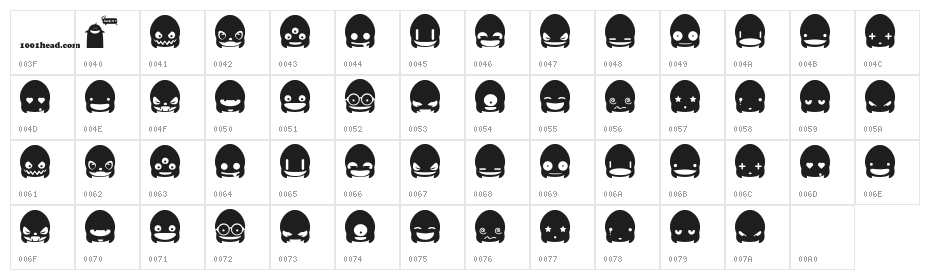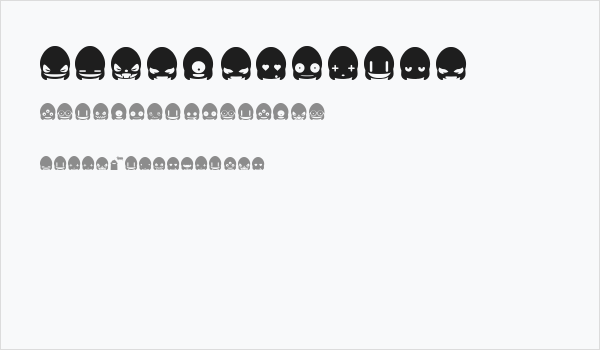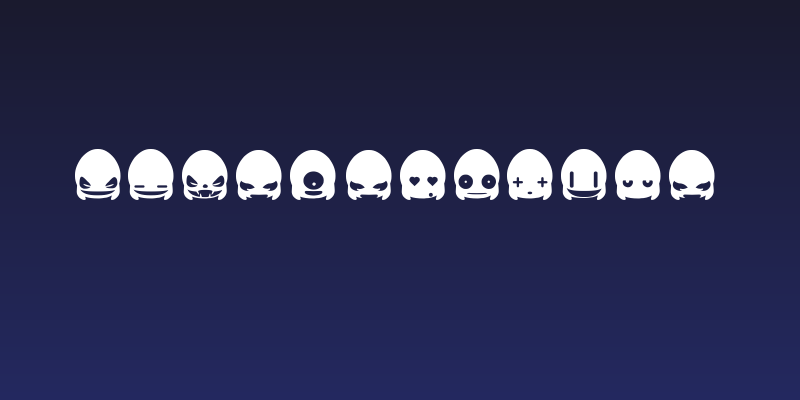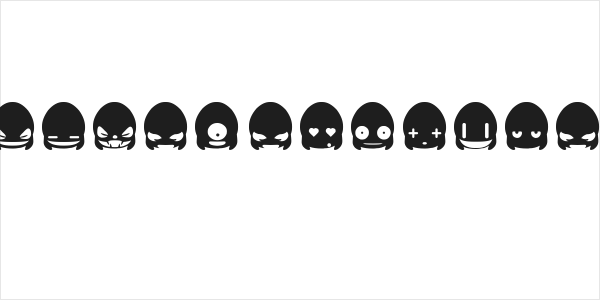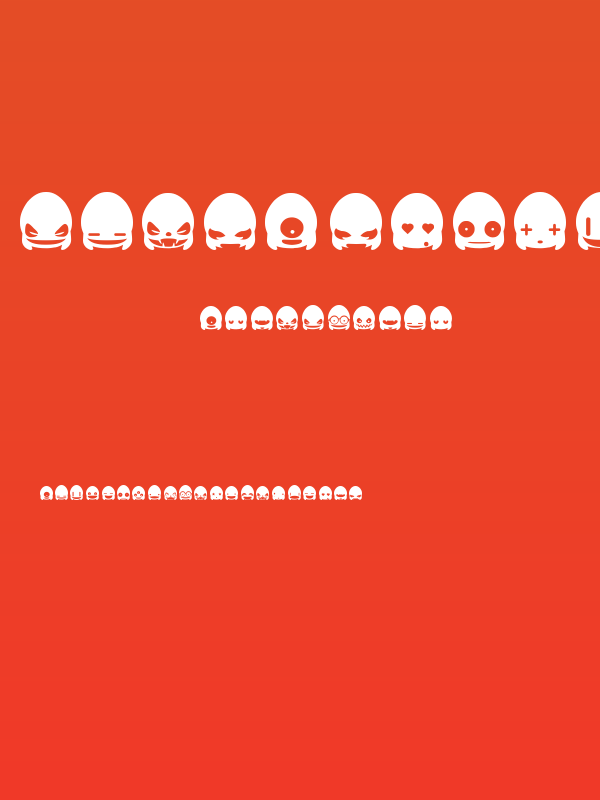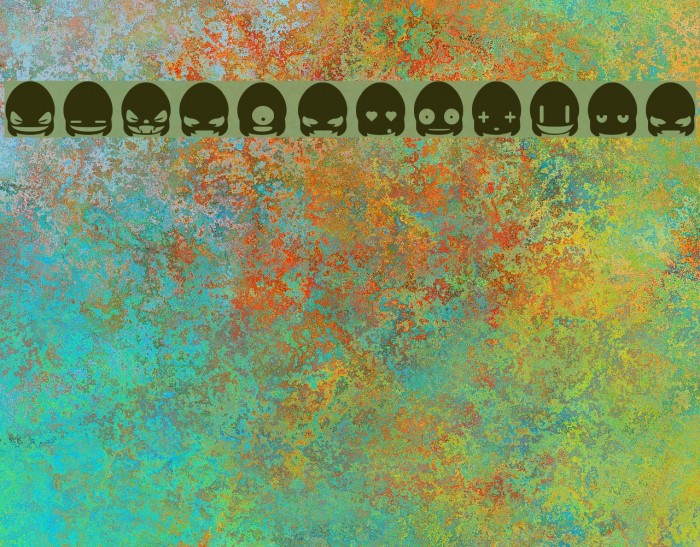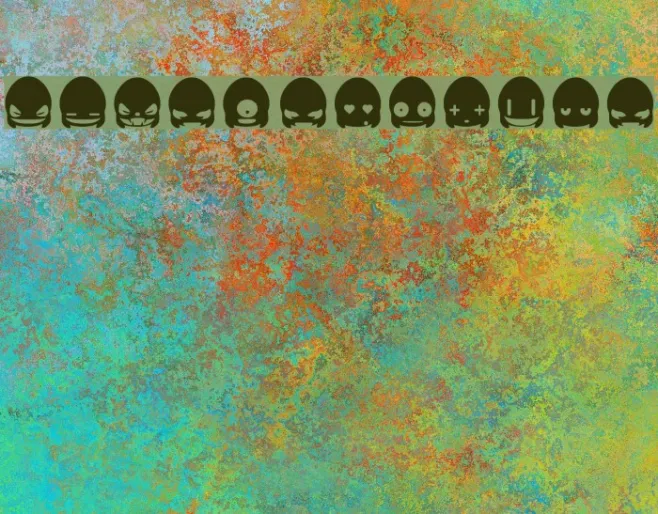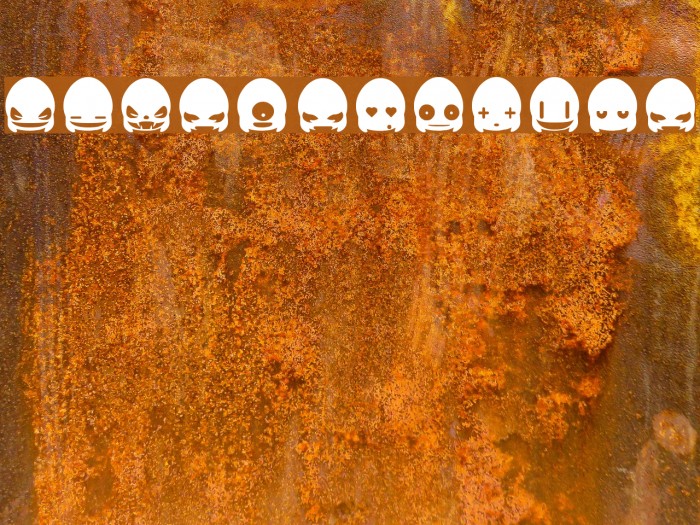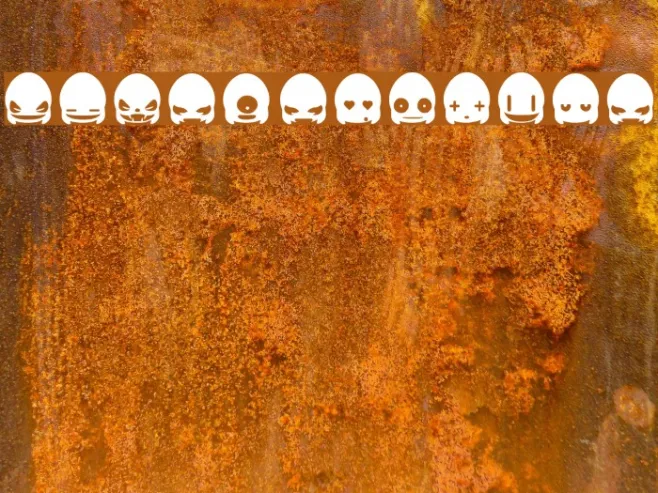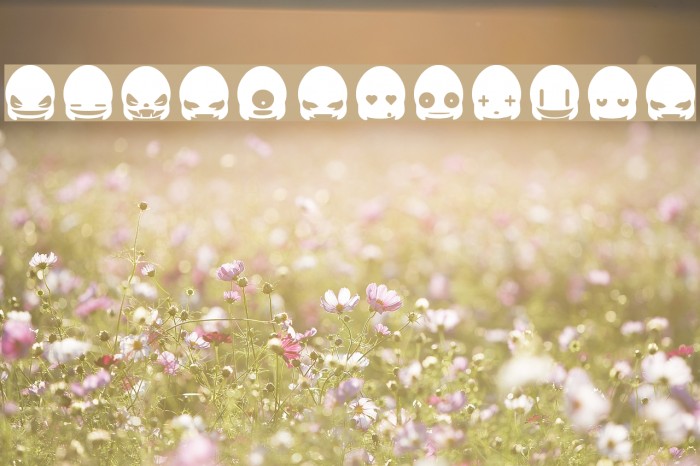
Ghost Smileys Font
Ghost Smileys Description
A playful and decorative dingbat font featuring ghost-like characters with a variety of expressive smiley faces, each glyph representing a different emotion or facial expression. The shapes are bold, rounded, and filled, with high contrast between the black body and white facial features.
| Overall Style | Playful, Decorative, Thematic |
| Use Case | Icons, Decorative elements, Themed headlines, Social media graphics |
| Proposed Projects | Halloween invitations, children's party materials, comic books, stickers, digital emojis, playful branding. |